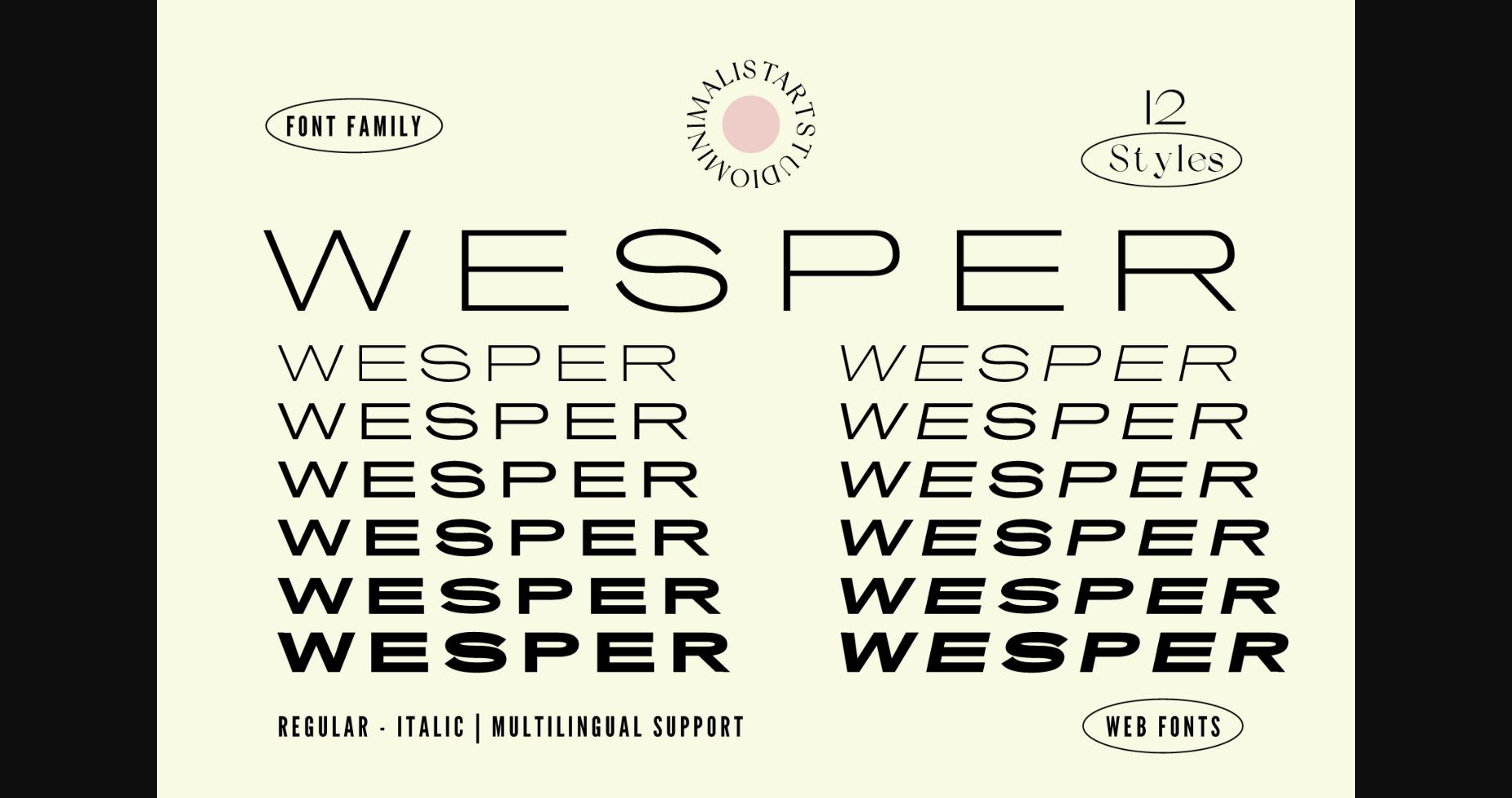
About Wesper Font
Wesper is a wide, minimalist, grotesque sans serif typeface. It comes with various weights and their corresponding italics to enrich your design. Its versatility renders it a vital choice when you are designing products, books, packaging designs, magazines, etc. Add it to your font library, and you will notice how it easily becomes your favorite choice in many design contexts.